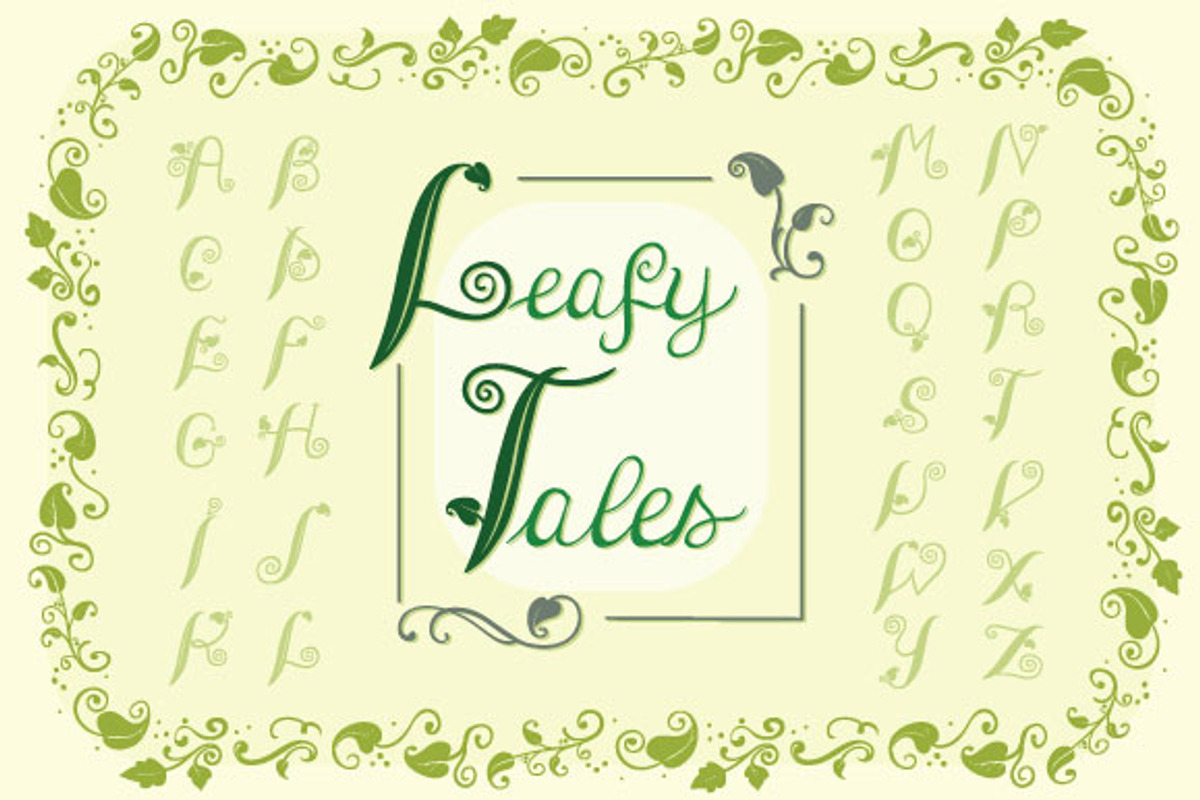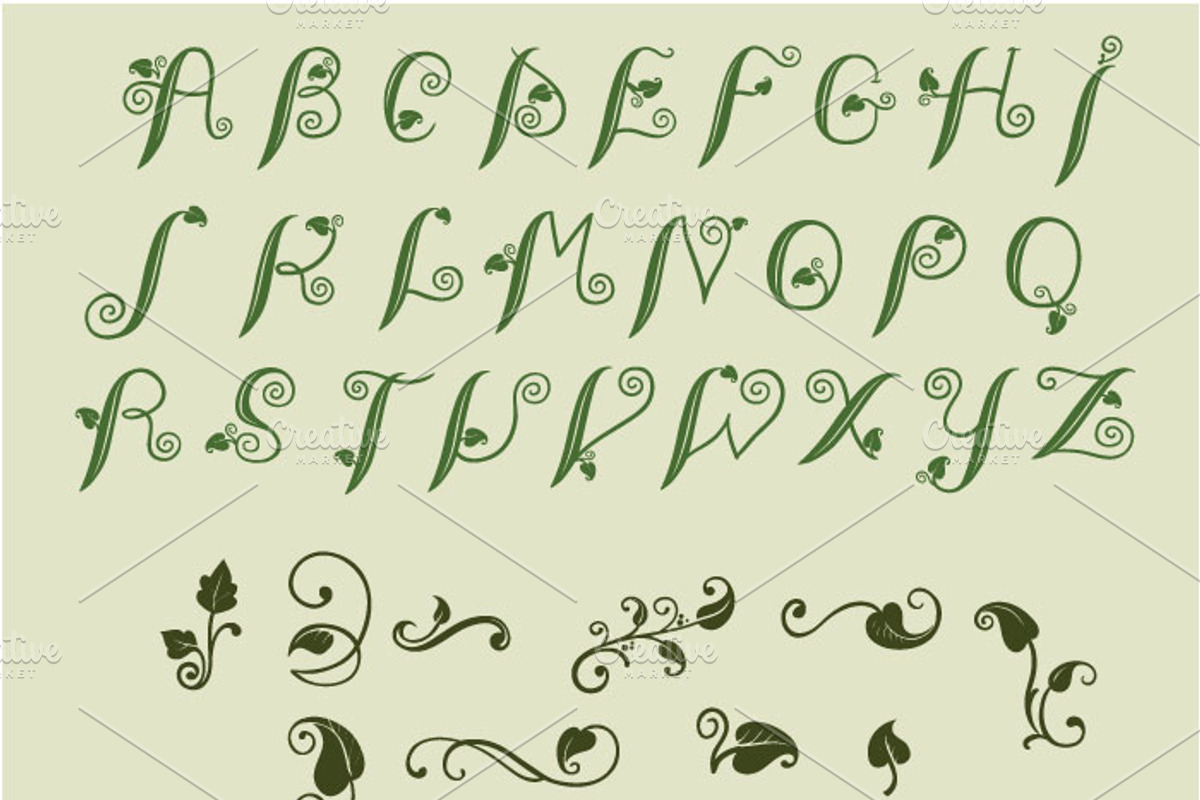
Leafy Tales Fonts
This is a collection of vintage fonts, alphabets and ornaments drawn in a simple yet fairy tale-like way These are perfect for children's books illustrations or other nature or faity tale- based designs.